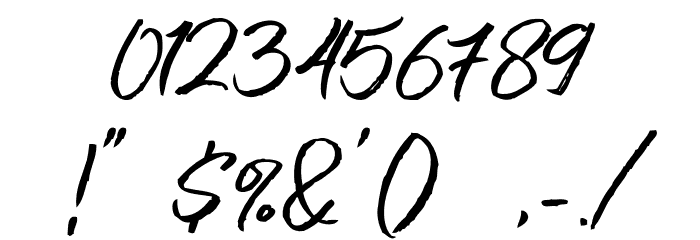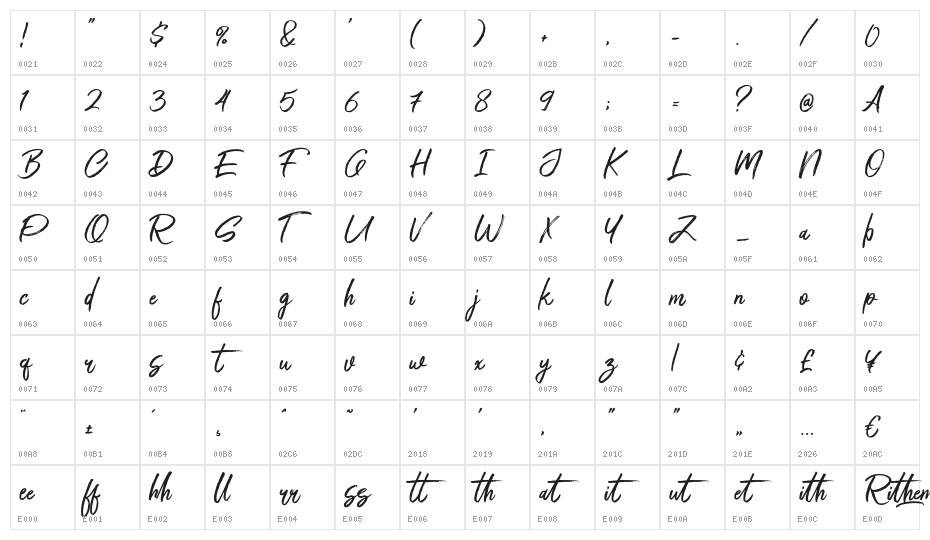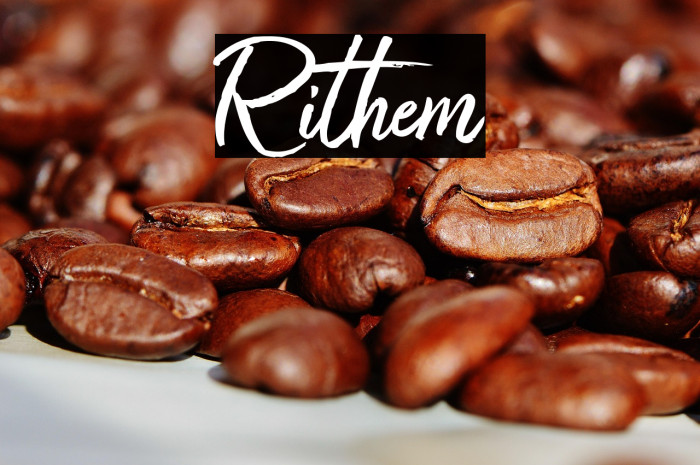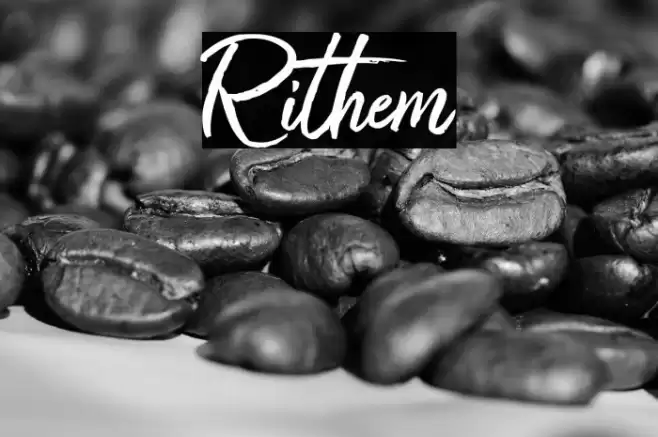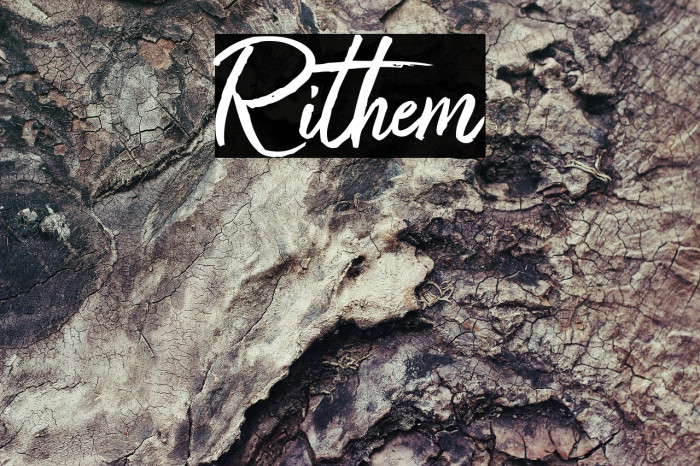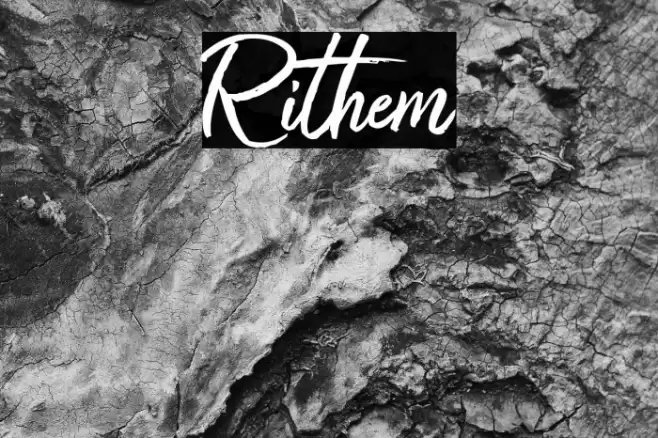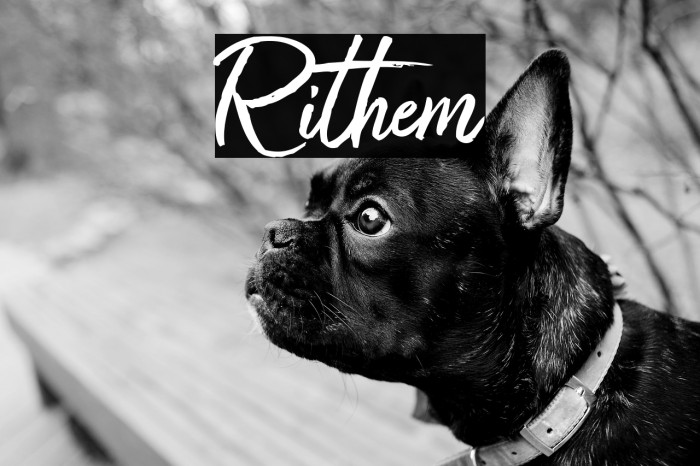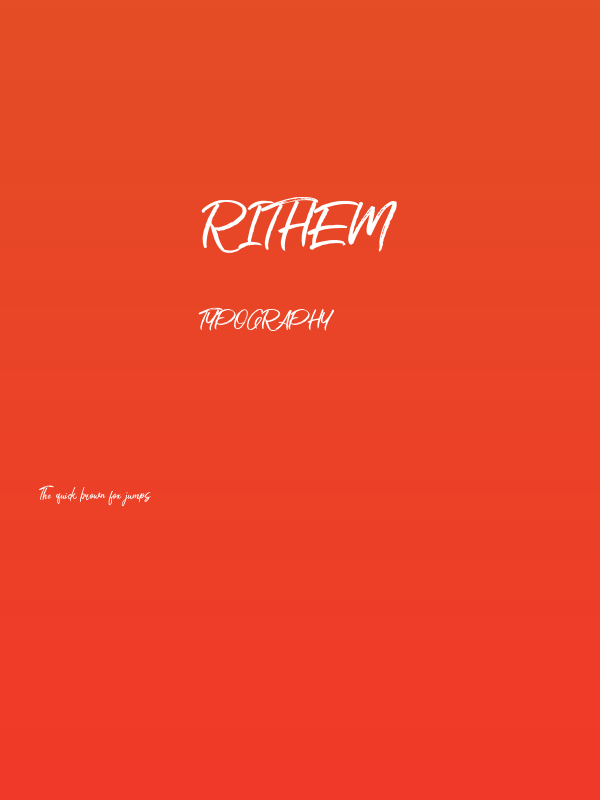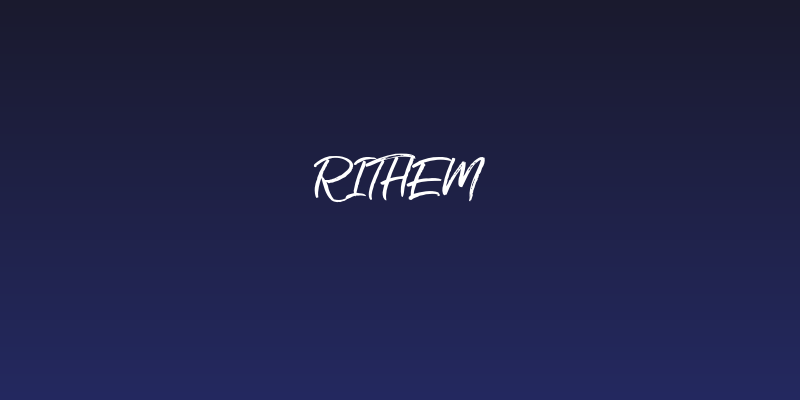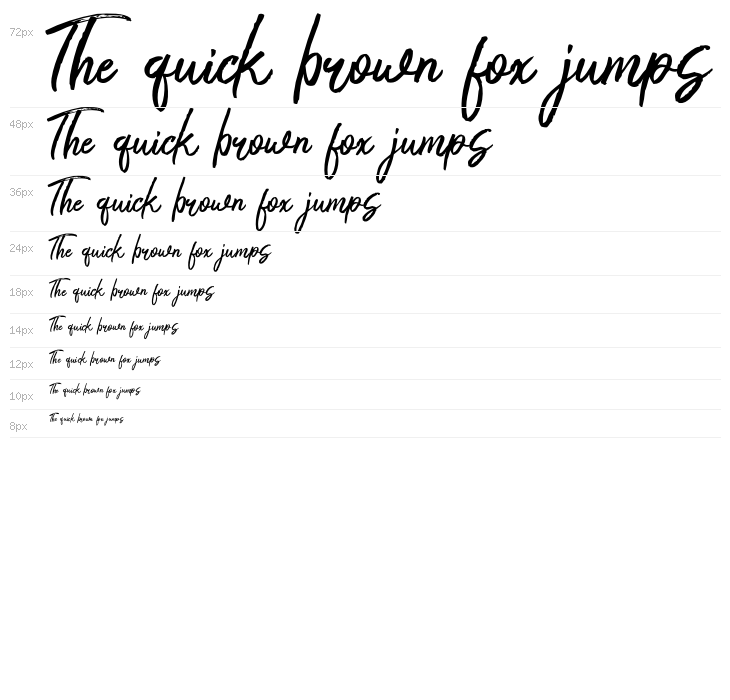
Rithem Font
Rithem Description
This font exudes a dynamic and energetic feel, characterized by its bold, sweeping strokes and fluid, cursive style. The uppercase letters are particularly striking, with a sense of movement and flair that suggests a handwritten touch. The lowercase letters maintain this fluidity, offering a harmonious balance between elegance and readability. The numerals are consistent with the overall style, featuring similar bold strokes and a slightly playful character. Special characters are well-integrated, maintaining the font's cohesive look. This font's unique style makes it ideal for projects that require a personal, artistic touch.